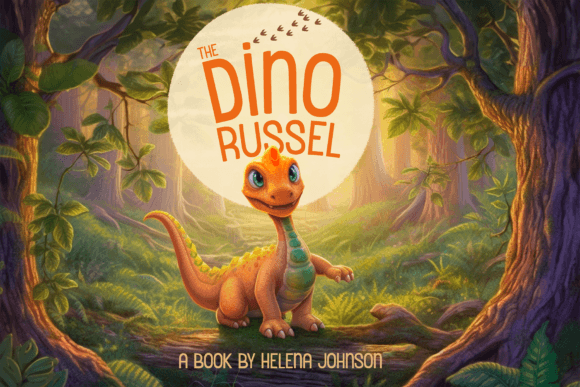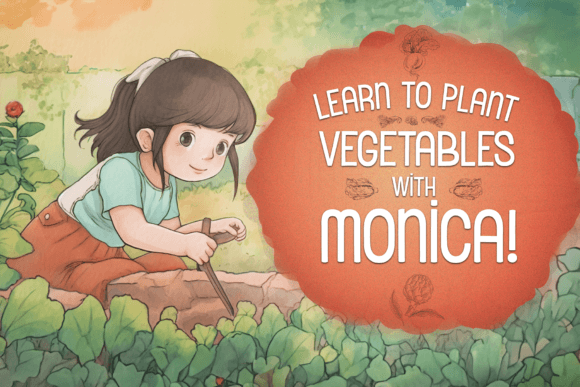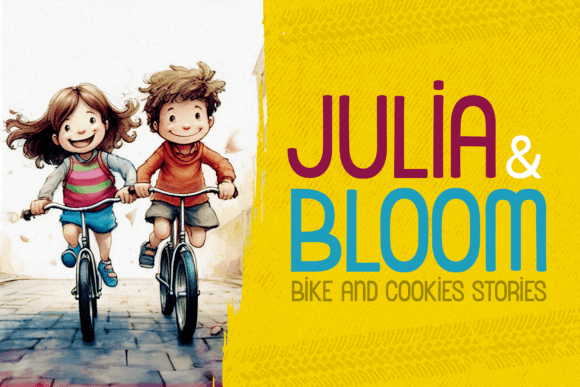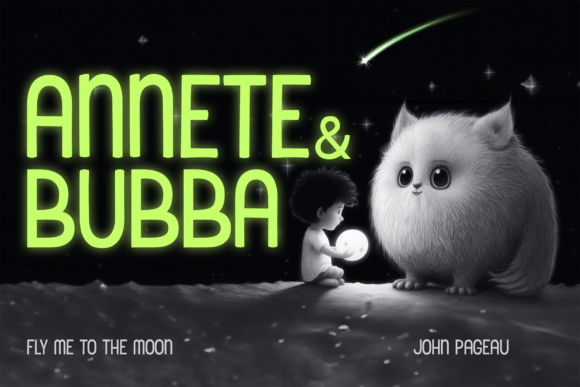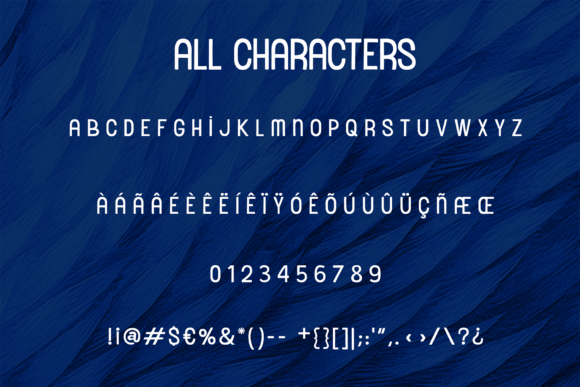
Introduction to Rabito Font
Have you ever been stuck in front of a blank page, trying to come up with the perfect headline for a school project or a catchy tagline for a toy advertisement? We’ve all been there, and it’s frustrating when our creative ideas just won’t come together. But what if I told you there’s a secret to making your message truly stand out?
Meet Rabito Font, a high-quality design resource that guarantees to make every message you create a lasting impact. With its unique and playful style, Rabito Font is perfect for any creative project that requires a little extra flair. Whether you’re working on a design project, creating a poster for a children’s event, or simply looking for a fun way to express yourself, Rabito Font is an invaluable resource that’s sure to deliver.
- With its unique and creative design, Rabito Font is perfect for designers looking to add a touch of elegance to their projects.
Honest Review: Rabito Font
I recently stumbled upon the Rabito Font while searching for a design resource for a creative project. I must say, I was quite impressed with its quality.
Here are some aspects that stood out to me: ✨
- Unique Design: The Rabito Font boasts an eye-catching design that sets it apart from other fonts. Its whimsical feel makes it perfect for projects that require a touch of personality.
- High-Quality Renditions: The font is available in high-quality renditions, making it suitable for both digital and print-based projects.
- Transparent Background: The font’s transparent background allows for seamless integration with other design elements.
However, I did encounter a few limitations: ⚠️
- Limited Character Set: The Rabito Font has a relatively limited character set, which might not be suitable for projects that require a wide range of characters.
- No Web Font Support: The font is not available as a web font, which might limit its usability in certain projects.
Overall, I would say that the Rabito Font is a great addition to any designer’s toolkit. While it may have some limitations, its unique design and high-quality renditions make it a valuable resource for creative projects.
Tips for Getting the Most Out of Rabito Font
To get the most out of Rabito Font, experiment with different font sizes, styles, and combinations. Use it in creative projects that require a high-quality, unique design. Take advantage of its transparent background feature to combine it with other design elements.
Rabito Font is commonly used in creative projects such as logos, business cards, and presentations. Its high quality and unique design make it a perfect fit for any project that requires a creative and professional touch.